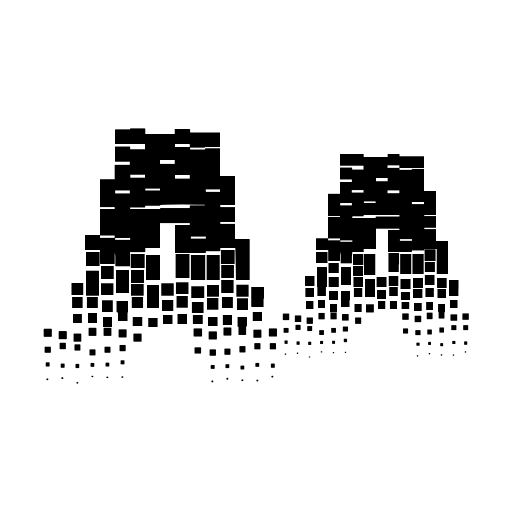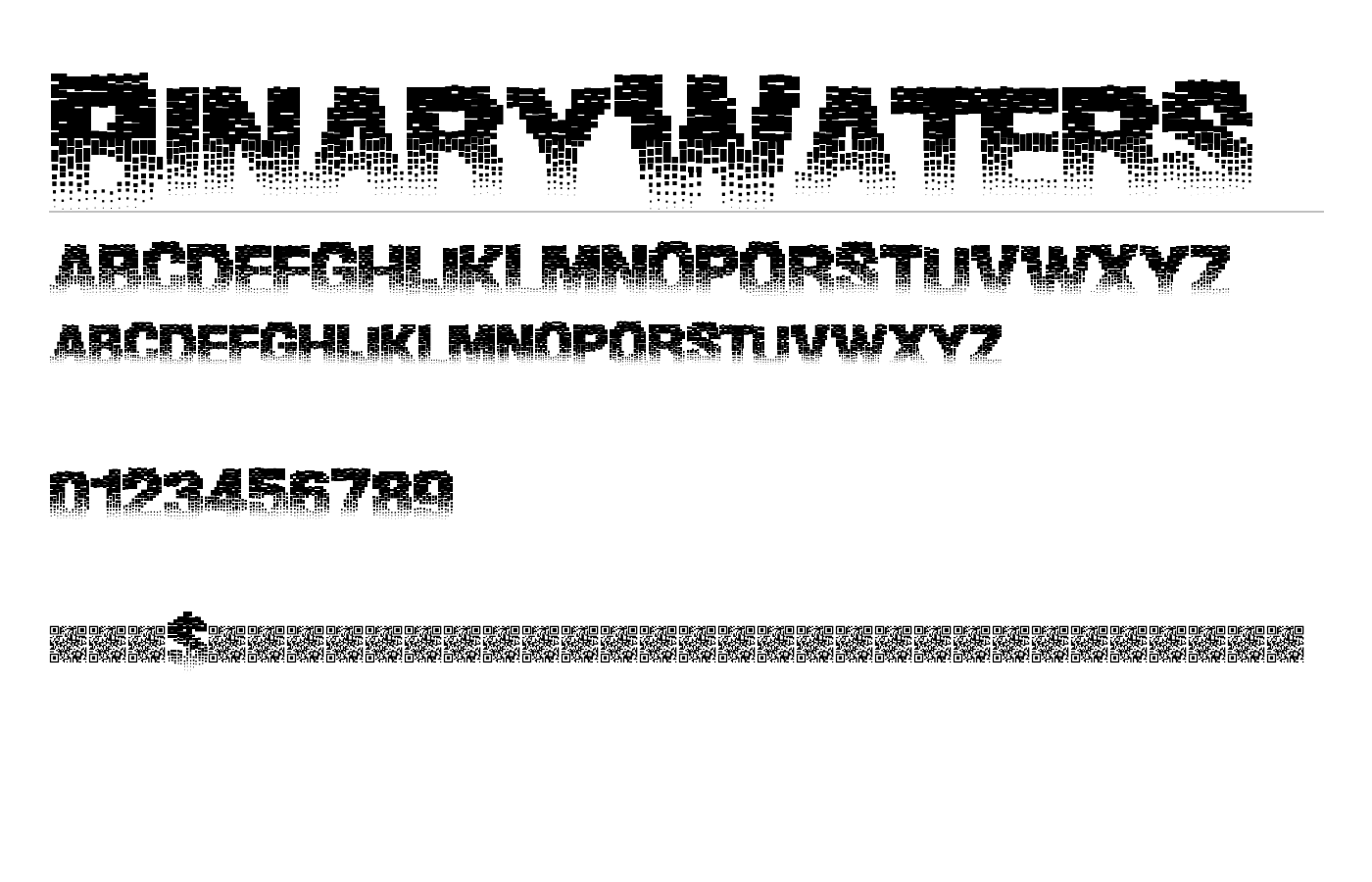
BinaryWaters is a bold, all-caps display font featuring a digital pixelated effect that fades downward, evoking a futuristic and tech-inspired vibe. Its strong, blocky letterforms combined with the dissolving grid pattern make it perfect for eye-catching headlines, posters, or branding in technology, gaming, or digital art contexts. This font stands out with its unique blend of modern geometric structure and pixel art style, creating a striking visual impact.
BinaryWaters Font
About BinaryWaters Font